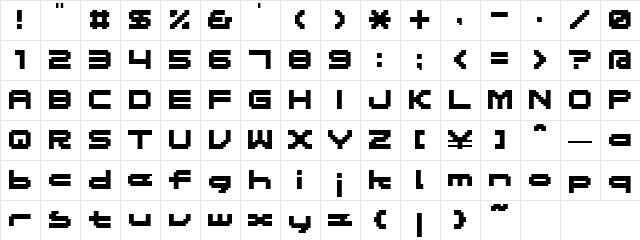
MASSIVE 10 A Font Preview
Design Context for MASSIVE 10 A Typeface
MASSIVE 10 A is a composed and adaptable typeface that performs quietly and consistently across a wide range of design contexts.
Pro Tip: Use MASSIVE 10 A in both headline and body roles to test its range before committing to a single application.